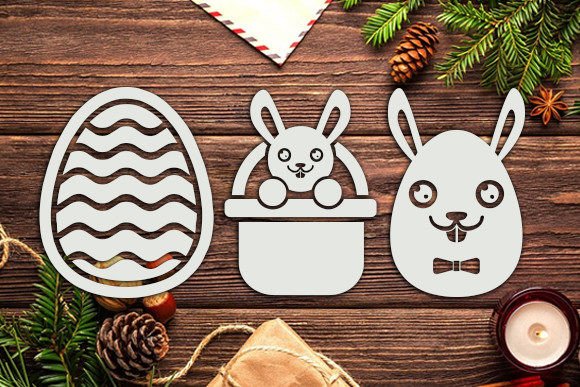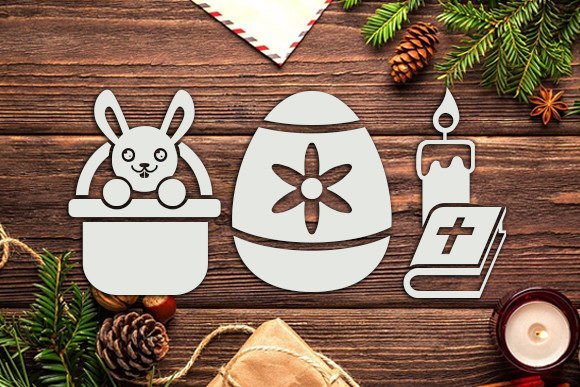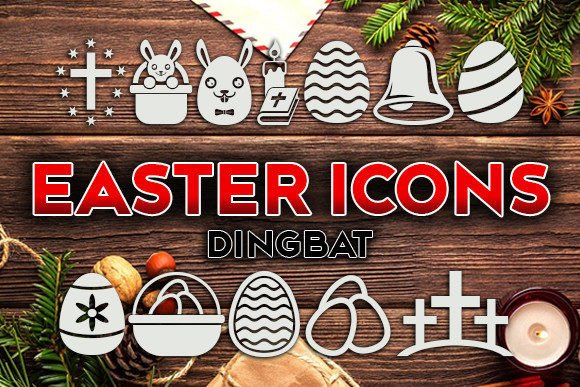
Easter Icons Font: The Perfect Addition to Your Easter Designs
Are you looking for a unique and adorable font to make your Easter designs stand out? Look no further than Easter Icons Font! This awesome dingbats font is specifically designed to add a touch of Easter magic to your posters, flyers, and other creative projects. In this article, we’ll take a closer look at Easter Icons Font and explore its features, benefits, and uses.
What is Easter Icons Font?
Easter Icons Font is a dingbats font that features a collection of Easter-themed icons, including eggs, bunnies, flowers, and more. This font is perfect for designers, crafters, and anyone looking to add a playful touch to their Easter designs. With its adorable and colorful icons, Easter Icons Font is sure to delight your audience and make your designs look fantastic.
Features of Easter Icons Font
Easter Icons Font comes with a range of features that make it an excellent choice for Easter designs. Some of its key features include:
- Adorable Easter icons: The font features a wide range of Easter-themed icons, including eggs, bunnies, flowers, and more.
- High-quality design: The font is designed with high-quality graphics, ensuring that your designs look professional and polished.
- Versatile: Easter Icons Font can be used on a range of design projects, including posters, flyers, cards, and more.
Benefits of Using Easter Icons Font
Using Easter Icons Font in your designs offers a range of benefits, including:
- Unique and eye-catching designs: The font’s adorable Easter icons will help your designs stand out and grab attention.
- Time-saving: With Easter Icons Font, you can quickly and easily add Easter-themed icons to your designs, saving you time and effort.
- Professional-looking designs: The font’s high-quality design ensures that your designs look professional and polished, even if you’re not a experienced designer.
Uses of Easter Icons Font
Easter Icons Font is a versatile font that can be used on a range of design projects, including:
- Posters: Use Easter Icons Font to create eye-catching posters for Easter events, promotions, or sales.
- Flyers: Add a touch of Easter magic to your flyers with Easter Icons Font.
- Cards: Use the font to create adorable Easter cards for friends and family.
- Social media graphics: Add Easter Icons Font to your social media graphics to make them more engaging and festive.
Tips for Using Easter Icons Font
Here are some tips for getting the most out of Easter Icons Font:
- Experiment with different colors: Try out different colors and combinations to find the perfect look for your design.
- Mix and match icons: Combine different Easter icons to create a unique and eye-catching design.
- Use it with other fonts: Pair Easter Icons Font with other fonts to create a contrasting look and add visual interest.
Easter Icons Font is an awesome dingbats font that will make your Easter designs look fantastic. With its adorable Easter icons, easy-to-use design, and versatile features, this font is perfect for designers, crafters, and anyone looking to add a touch of Easter magic to their designs. Whether you’re creating posters, flyers, cards, or social media graphics, Easter Icons Font is the perfect addition to your Easter designs.